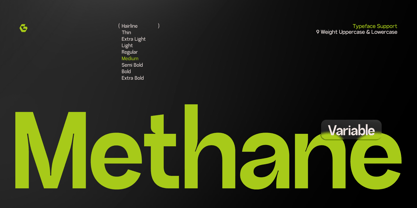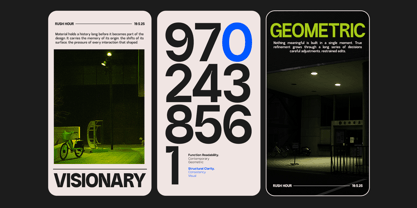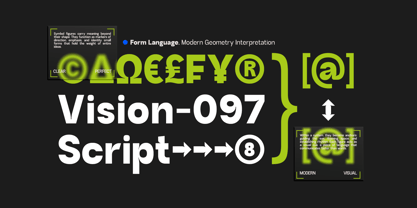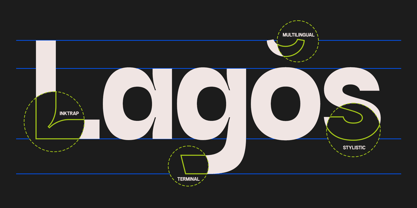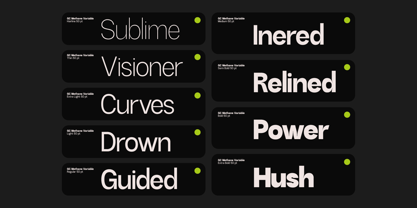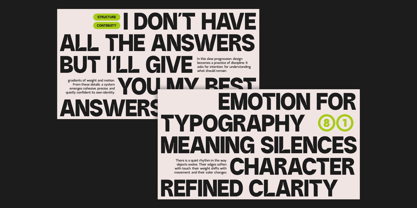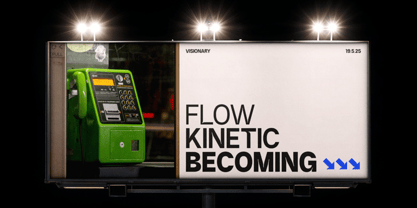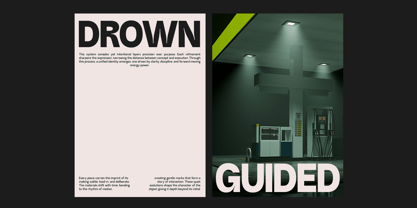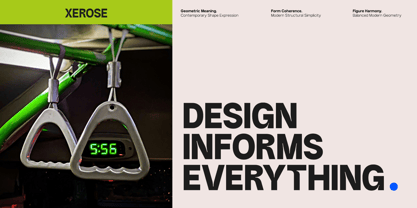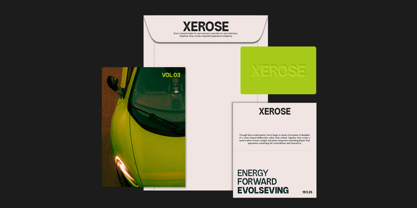
GC Methane
by Onyx Studio
The GC Methane Font Family was designed by Muhammad Hafiizh Solana and published by Onyx Studio. GC Methane contains 9 styles and family package options. More about this family
GC Methane – Typeface System is a contemporary sans serif typeface engineered for clarity, power, and flexibility within modern design systems. Built on clean geometric foundations and confident proportions, Methane delivers a bold yet controlled voice that performs seamlessly across digital interfaces, branding, and print. A complete type system, GC Methane offers a wide range of weights that adapt effortlessly from subtle typographic hierarchy to strong visual statements. Its precise construction ensures consistency, readability, and impact—making it ideal for tech-forward products, editorial layouts, UI/UX design, and modern visual. Balance of structure and expression, GC Methane brings clarity without sacrificing character. Whether used for bold headlines, scalable interfaces, or minimal compositions, it provides a modern typographic foundation built for performance and versatility. Features: - Uppercase & Lowercase - Numbers & Punctuation - Variable Font Support - Modern Geometric Construction - Multilingual Support Bring precision, adaptability, and modern strength into your design system with GC Methane.